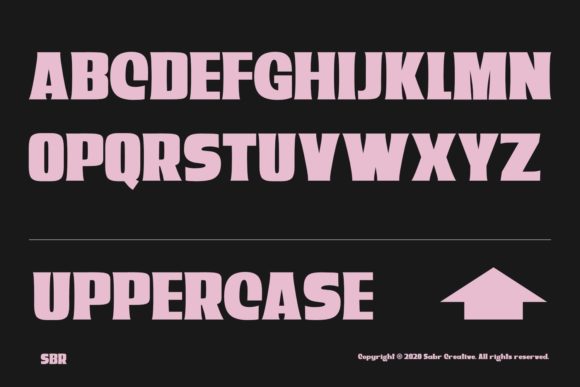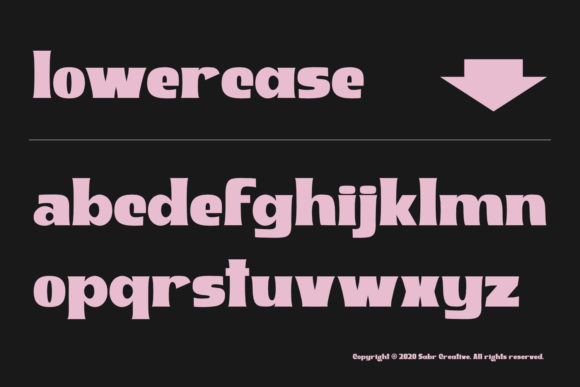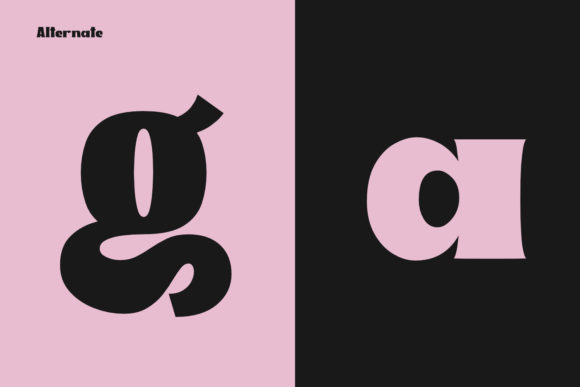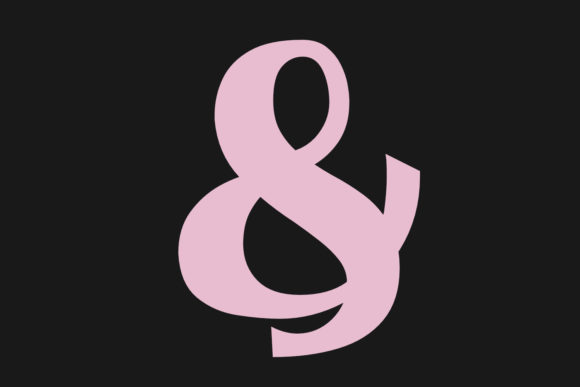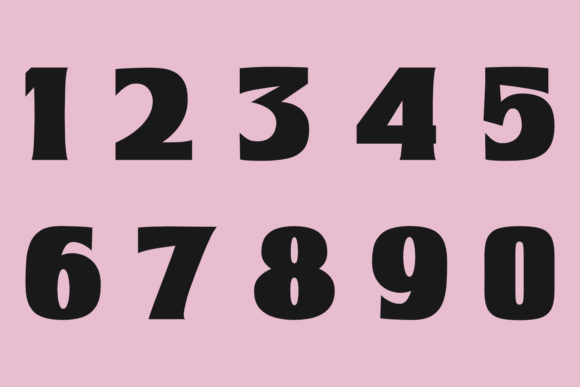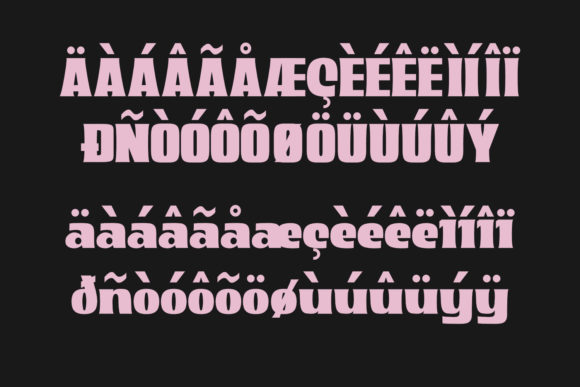
Introducing Andaga Font: A Bold and Modern Serif for Creative Expression
In the world of typography, fonts play a crucial role in conveying messages, evoking emotions, and creating brand identities. For designers and crafters, finding the right font can be a daunting task, especially when it comes to creating visually stunning and effective designs. This is where Andaga Font comes in – a bold and modern serif font that has been making waves in the design community.
What is Andaga Font?
Andaga is a bold and modern serif font that boasts a strong, high-contrast character. Its unique design makes it perfect for a wide range of applications, from hard-working text and display fonts to branding, advertising, packaging, headlines, magazines, websites, logo design, and more. Whether you’re a designer, craftsperson, or simply a DIY enthusiast, Andaga Font is an excellent addition to your typography arsenal.
Key Features of Andaga Font
- Bold and Modern Design: Andaga Font features a bold and modern design that is sure to grab attention. Its sleek lines, sharp edges, and high contrast character make it perfect for creating visually stunning designs.
- High Contrast Character: The font’s high contrast character provides excellent legibility, making it suitable for both body text and headlines.
- Versatile: Andaga Font is incredibly versatile and can be used for a wide range of applications, from digital designs to print materials.
- Easy to Read: Despite its bold design, Andaga Font is easy to read, even at smaller font sizes.
Use Cases for Andaga Font
Andaga Font is an excellent choice for various design projects, including:
- Branding and Logo Design: Create a lasting impression with Andaga Font’s bold and modern design. Use it to create logos, business cards, and other brand materials.
- Advertising and Marketing: Grab attention with Andaga Font’s high-contrast character. Use it to create eye-catching ads, posters, and flyers.
- Packaging Design: Add a touch of sophistication to your packaging designs with Andaga Font. Use it to create labels, tags, and other packaging materials.
- Magazines and Newspapers: Use Andaga Font to create engaging headlines and articles. Its high contrast character makes it perfect for body text and captions.
- Websites and Digital Designs: Add a touch of elegance to your website or digital design with Andaga Font. Use it to create headings, titles, and other UI elements.
Why Choose Andaga Font?
With so many fonts available, why choose Andaga Font? Here are a few reasons:
- Unique Design: Andaga Font features a unique design that sets it apart from other serif fonts.
- High Quality: Andaga Font is a high-quality font that is designed to work seamlessly in various design applications.
- Versatile: Andaga Font is incredibly versatile and can be used for a wide range of design projects.
In conclusion, Andaga Font is an excellent choice for designers and crafters looking for a bold and modern serif font. Its unique design, high contrast character, and versatility make it perfect for a wide range of applications. Whether you’re creating branding materials, advertising campaigns, or digital designs, Andaga Font is sure to make a lasting impression.